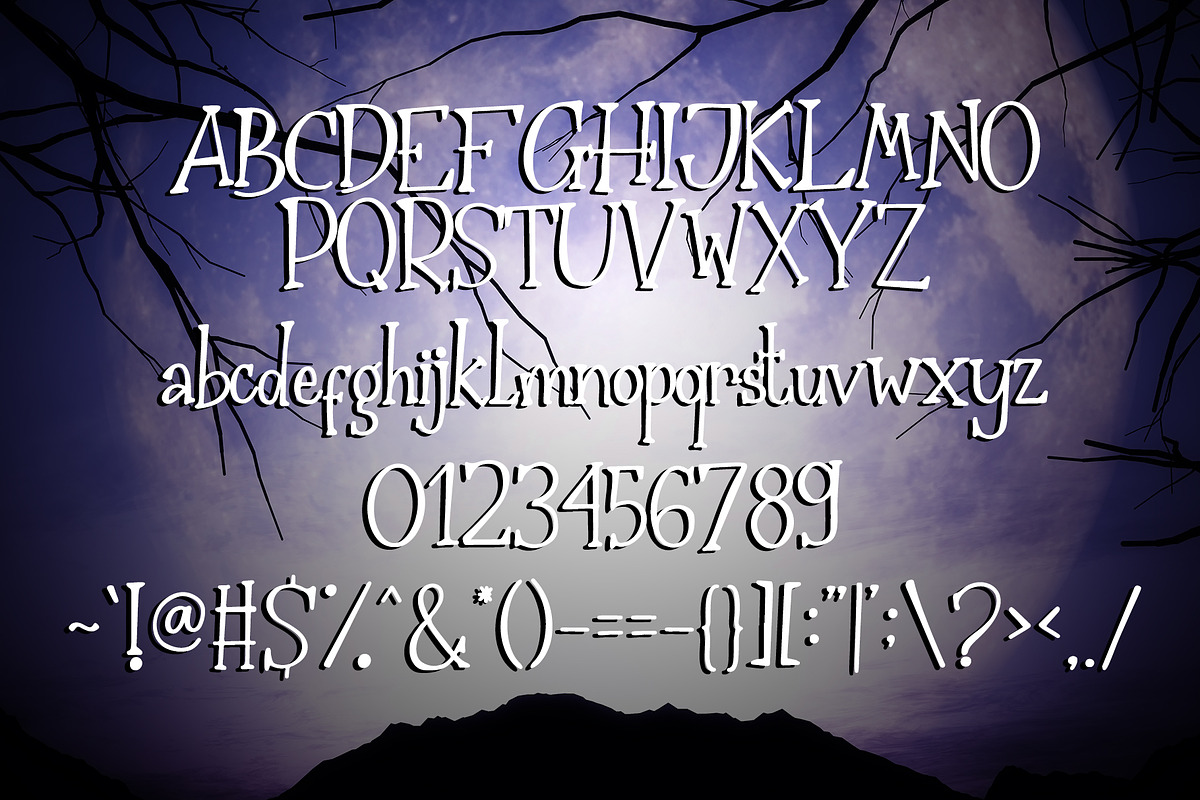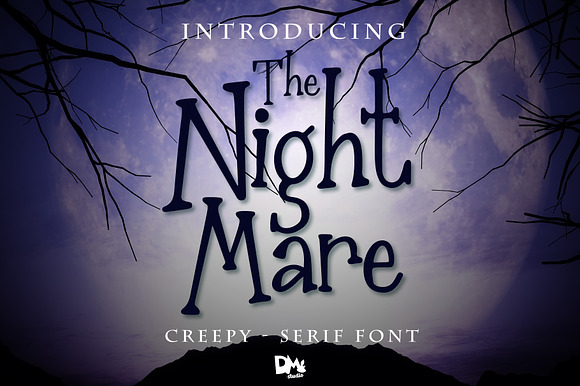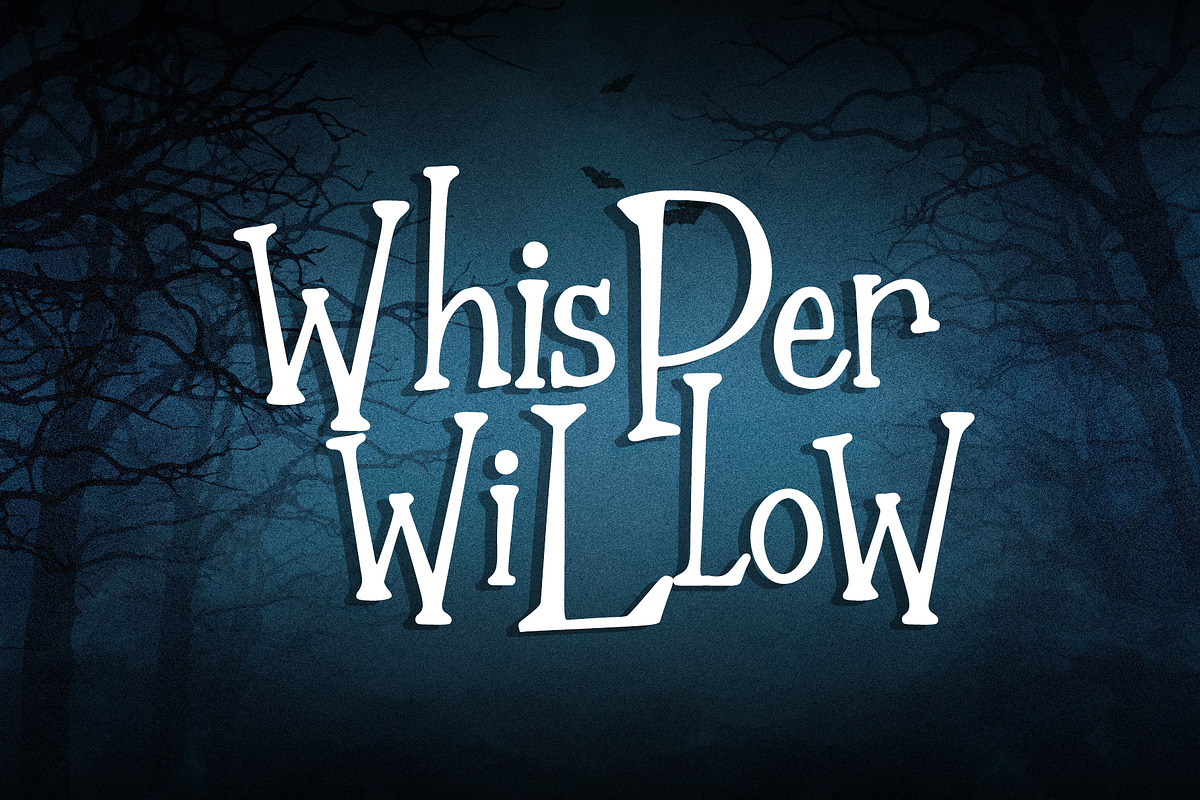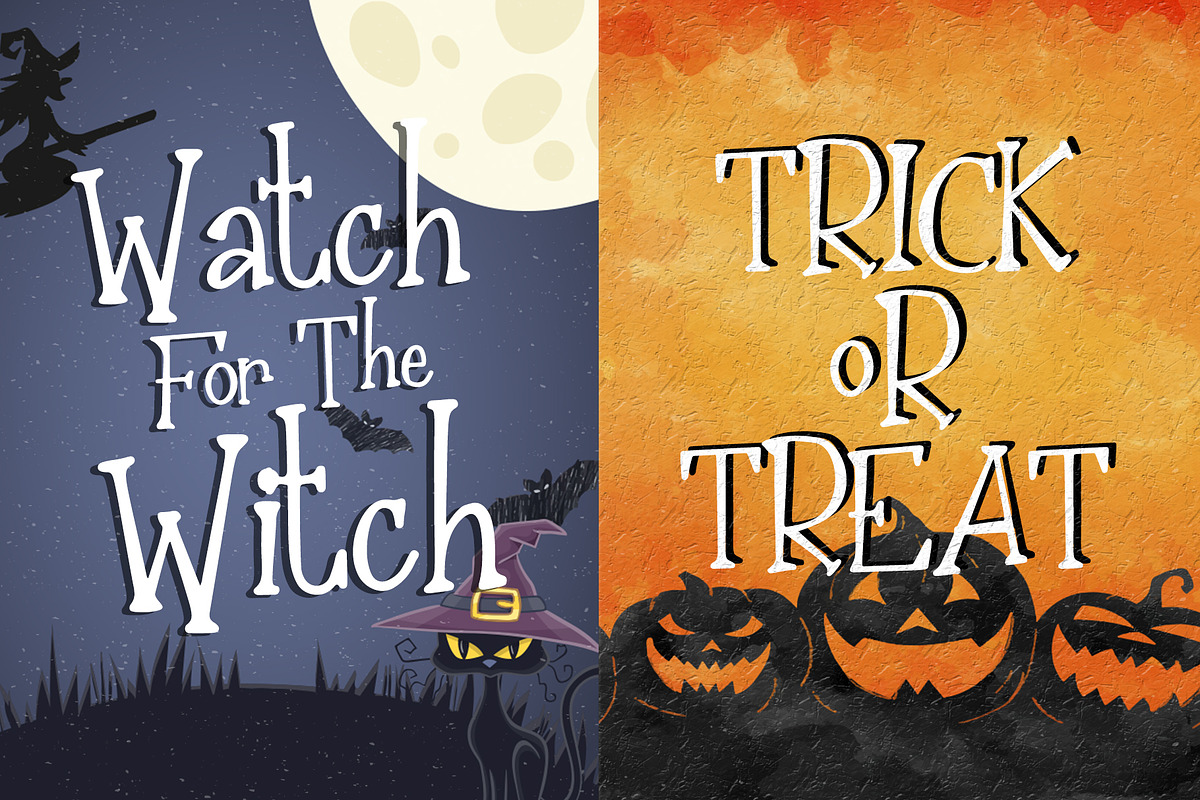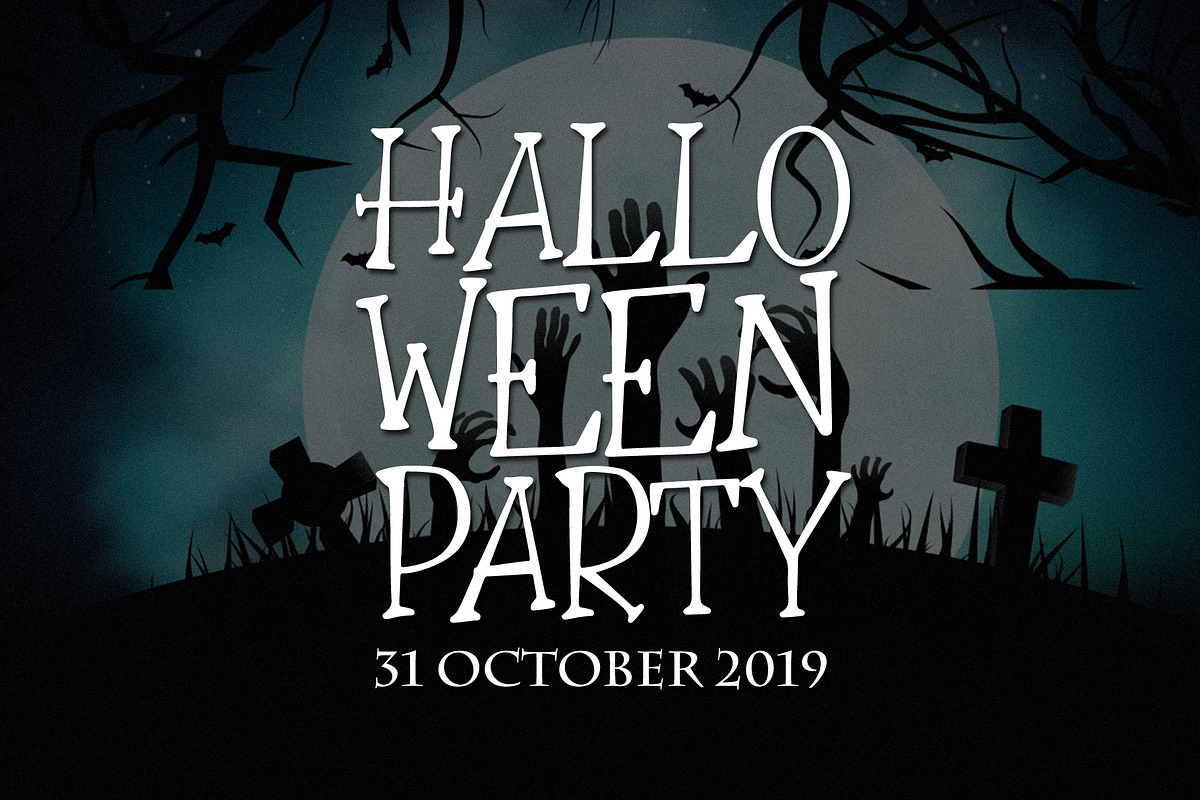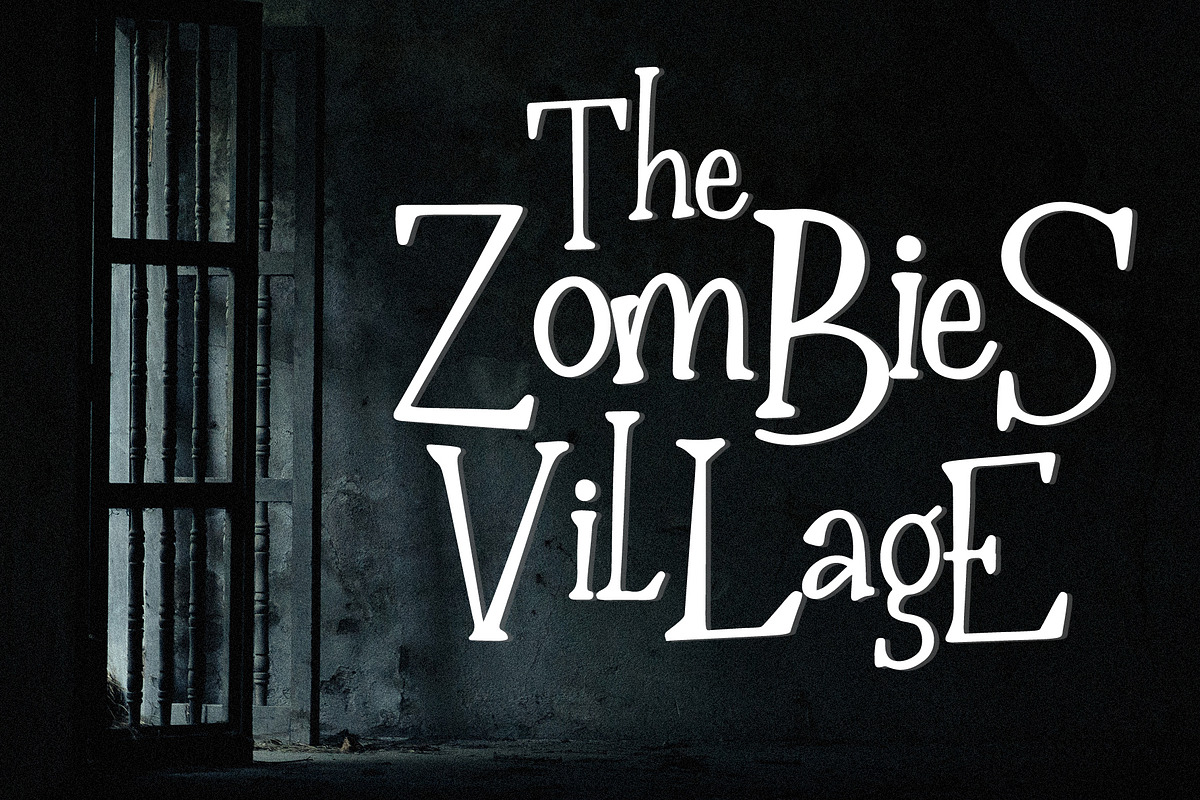
The Nightmare - Creepy Serif Font
The Nightmare - Creepy Serif Font Great choice for any display project,Halloween card, t-shirt,pillow,crafting,and much more!
The Nightmare Features :
- Numeric
- Multilingual